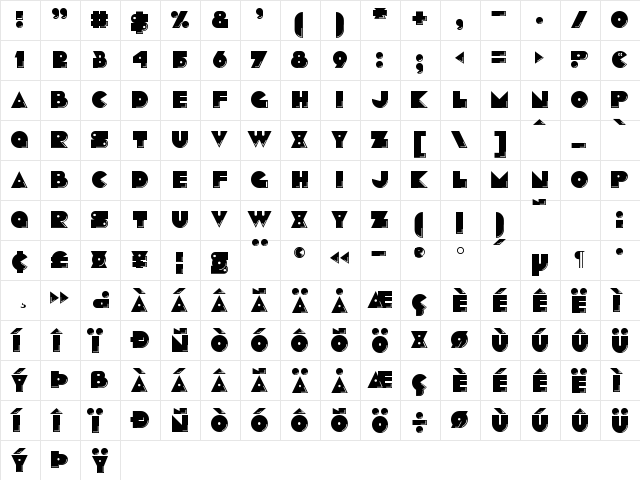
Pacmania Regular
| Foundry | Pixel Sagas |
| Designer | Neale Davidson |
Design Context for Pacmania Typeface
Pacmania is a composed and adaptable typeface that performs quietly and consistently across a wide range of design contexts.